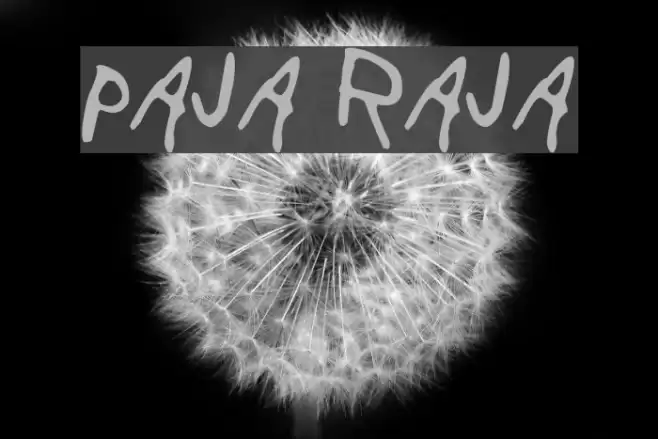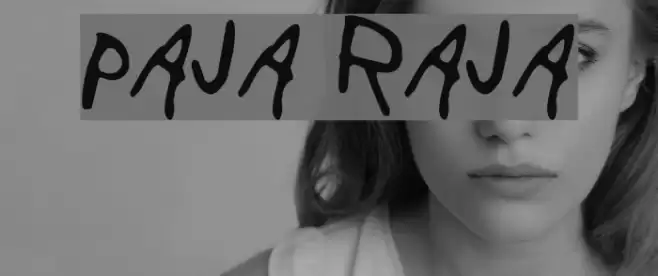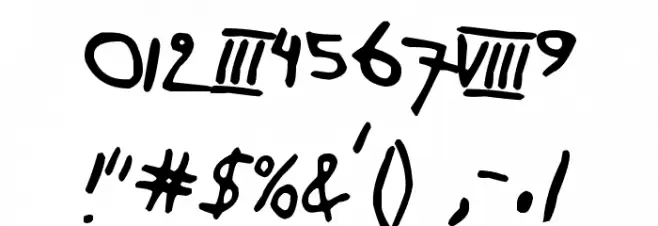
Paja Raja Font
Paja Raja Description
This font exhibits a playful and dynamic handwritten style, characterized by its irregular and spontaneous strokes. The letters have a casual, informal appearance, with varying angles and a slightly slanted orientation that adds to its energetic feel. The uppercase and lowercase letters maintain a consistent flow, while the numbers and special characters integrate seamlessly with the overall design. The font's unique personality makes it stand out, offering a sense of creativity and individuality. Its hand-drawn quality is evident in the uneven line thickness and organic shapes, making it ideal for projects that require a personal touch.
A playful, handwritten font with dynamic and irregular strokes from Uncategorized fonts.
- Proposed Projects: Ideal for creative projects such as greeting cards, invitations, posters, and branding that require a personal and artistic touch.
- Use Case: Headlines, Logos, Creative projects